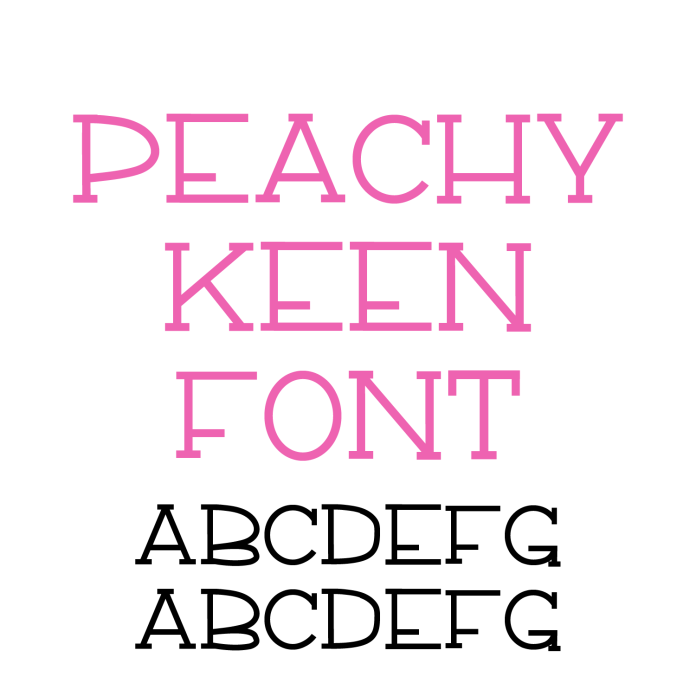
Say hello to Peachy Keen Font—a fun and cheerful handwritten serif font perfect for adding personality to your crafting projects! With its playful curves and charming hand-drawn style, Peachy Keen is ideal for stickers, greeting cards, labels, quotes, home decor, and custom gifts. This friendly serif typeface offers a unique blend of classic and whimsical, making your designs feel warm and inviting. Optimized for smooth cutting with cutting machines, Peachy Keen works great for vinyl projects, printables, and digital designs. Download Peachy Keen Font today and give your creations a sweet, creative twist full of fun flair!